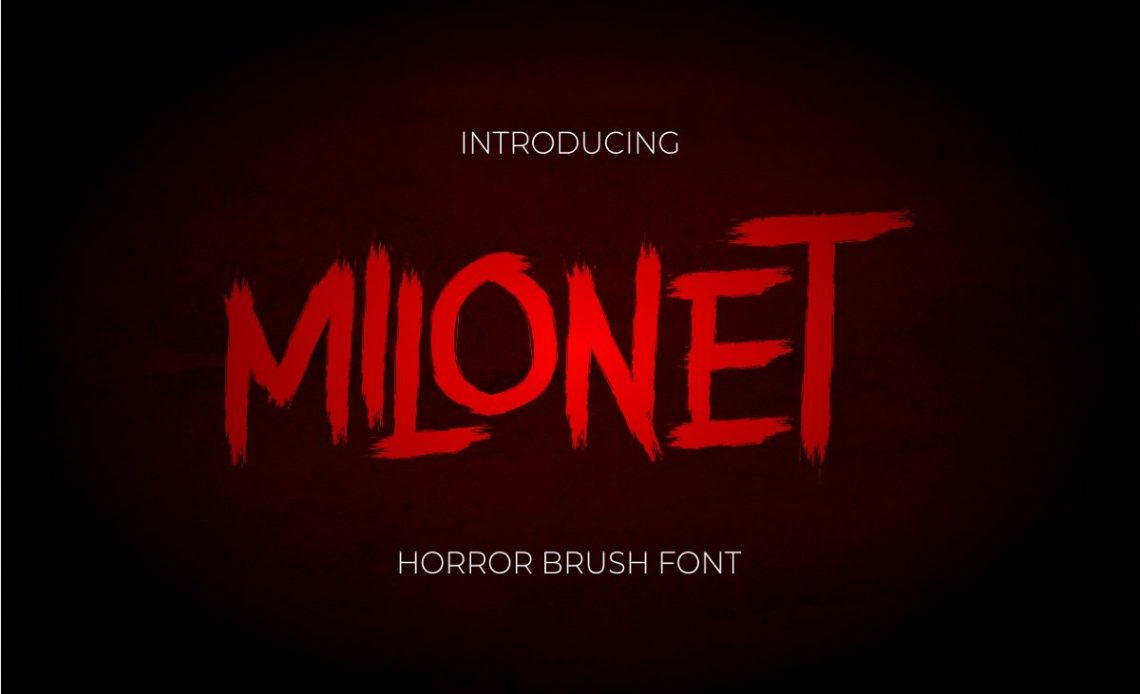
Introducing Milonet Horror Brush Font, the perfect choice for all your movie poster needs! Created by Creative King Design, this modern and captivating horror brush font is here to take your designs to the next level. With its elegant, classy, and easy-to-read style, Milonet Font is a favorite among designers and market enthusiasts.
Designed to meet the demands of the market, Milonet Font adds a touch of horror and excitement to any project. Whether you're working on a movie poster, a challenging design, or any other creative endeavor, this font is sure to make a lasting impression.
Featuring all caps and selected letter ligatures, Milonet Font offers versatility and creativity for your typography needs. Its sleek and stylish appearance will make your designs stand out, capturing the attention of your audience.
With Milonet Font, you can create stunning designs that evoke emotion and captivate your audience. It's time to unleash your creativity and make a statement with this eye-catching font.